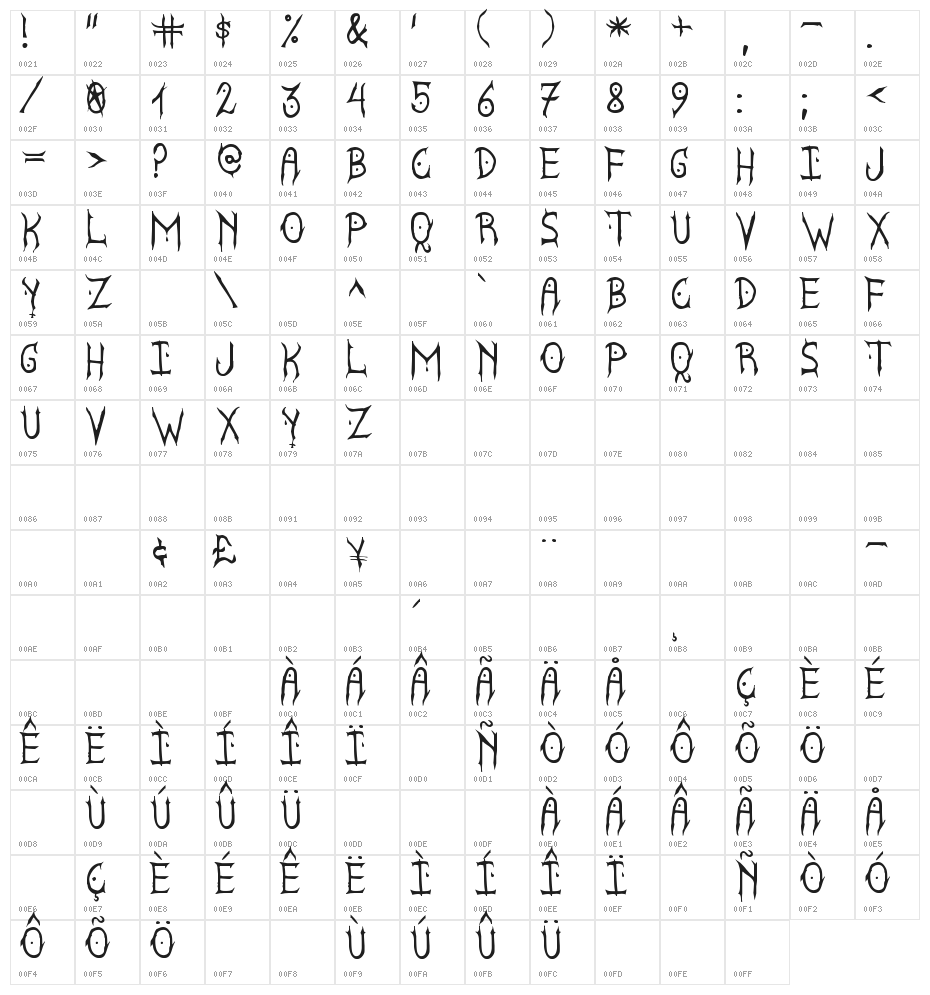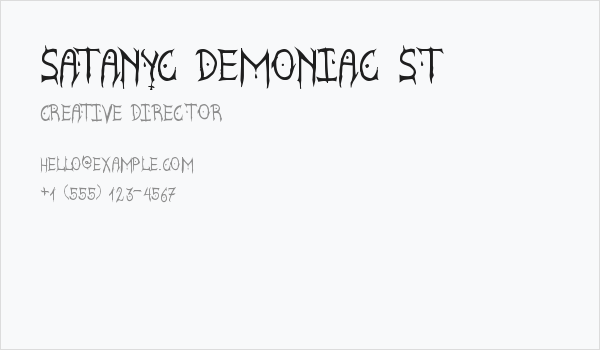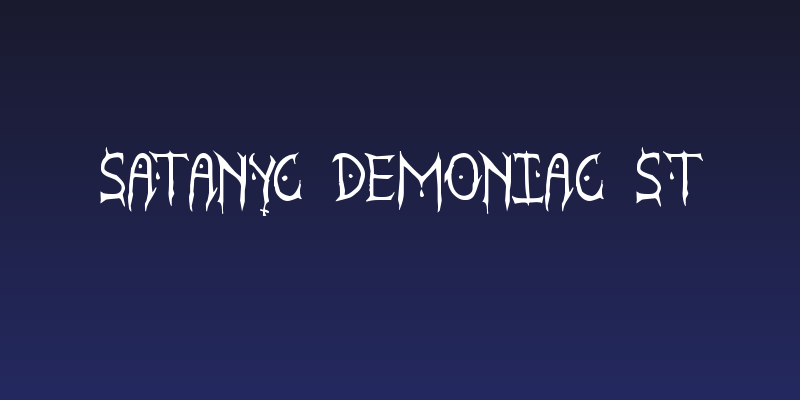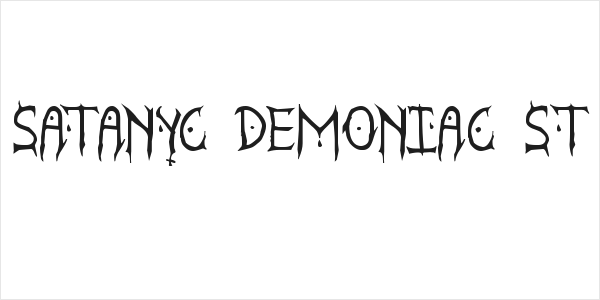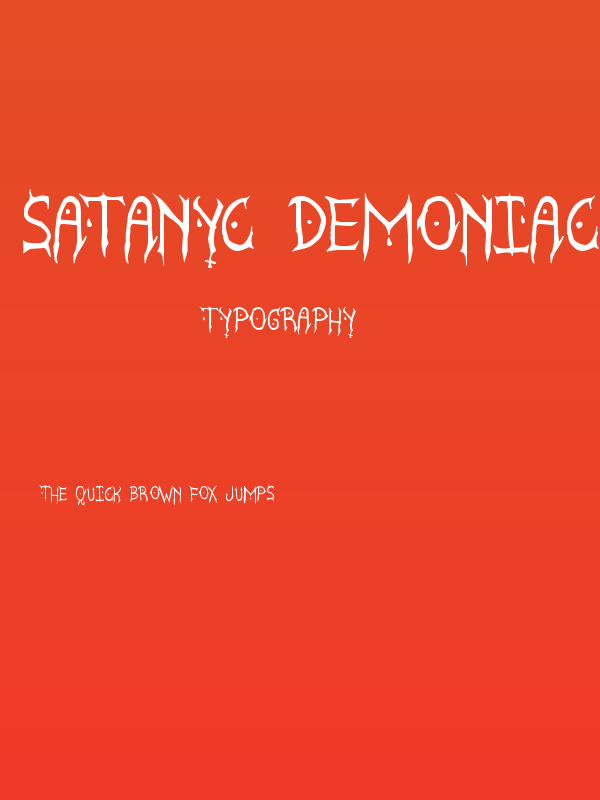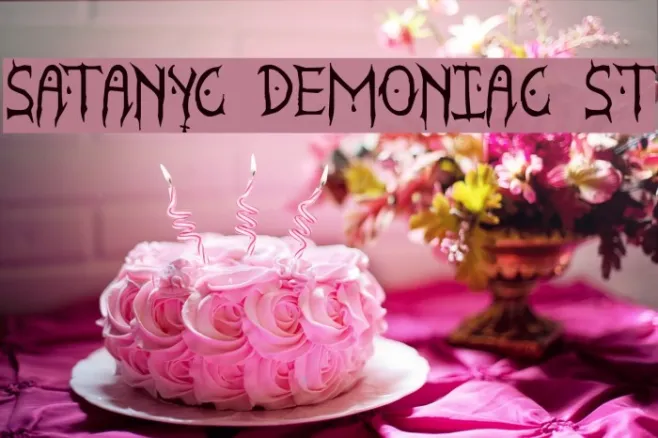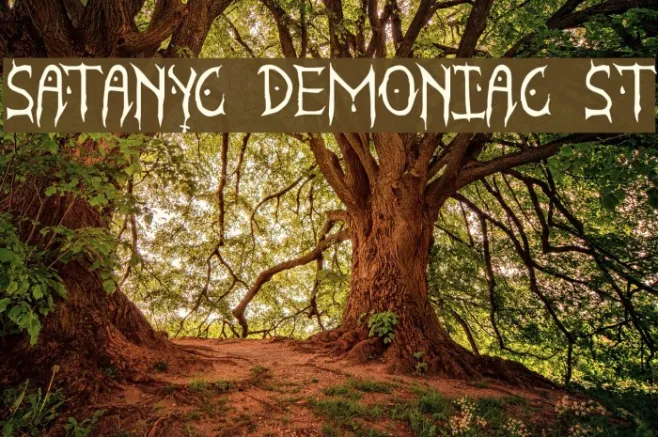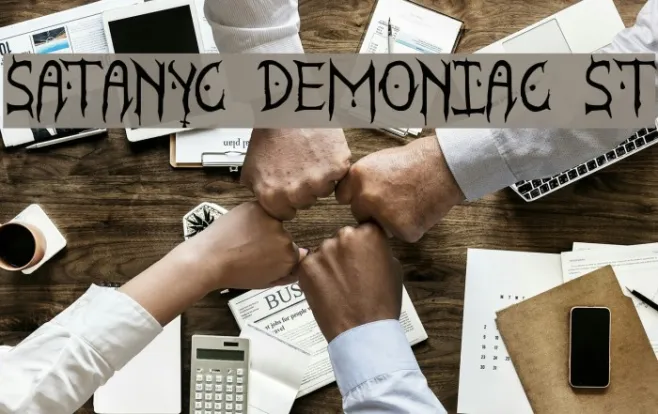
Satanyc Demoniac St Font
Satanyc Demoniac St Description
This font features a highly decorative and gothic style, characterized by sharp, pointed edges and irregular strokes that evoke a sense of mystery and darkness. The letters are uniquely crafted with an almost hand-drawn appearance, incorporating elements that resemble thorns or spikes. The overall design is bold and eye-catching, making it suitable for projects that require a dramatic and intense visual impact. The numbers and special characters maintain the same thematic style, ensuring consistency across all text elements.
| Overall Style | Gothic, Decorative |
| Proposed Projects | Ideal for horror-themed posters, album covers, Halloween invitations, and any project requiring a dark, mysterious aesthetic. |